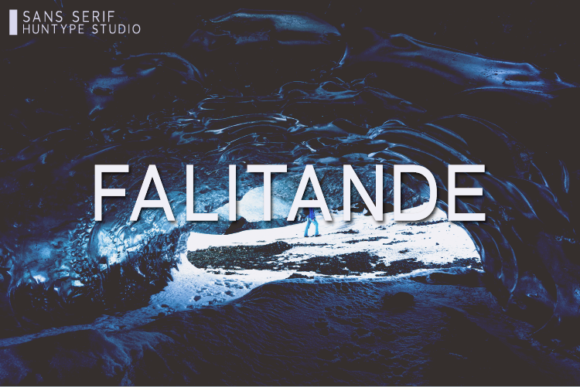
Step into the world of sleek and sophistication with Falitande, a minimal masterpiece that will redefine your typography journey. Crafted by the experts at Huntype, this sans serif font is not just a collection of letters; it's an expression of elegance and grace ready to transform your creative endeavors.
Falitande's clean lines and simple curves exude a timeless charm, making it the perfect choice for fashion logos seeking a touch of understated luxury. Its effortlessly stylish demeanor adds a hint of refinement to any design, leaving a lasting impression on your audience. Whether you're designing a logo for a high-end clothing line, a chic boutique, or a fashion blog, Falitande will elevate your designs to new heights of sophistication.
This versatile font effortlessly adapts to various design styles, making it a true all-rounder. Its crisp and legible structure lends itself perfectly to headlines, body text, and even branding elements, ensuring a cohesive and visually appealing aesthetic throughout your projects. With Falitande, you can create eye-catching social media posts, stunning brochures, and captivating websites that exude professionalism and leave a lasting impact.
But Falitande is more than just a visually stunning font; it's a gateway to a world of creative possibilities. Its minimalistic nature invites you to experiment with colors, textures, and layouts, allowing your imagination to run wild. Unleash your creativity and watch as Falitande transforms your designs into masterpieces that stand out from the ordinary.
So, embrace the allure of Falitande and embark on a journey of typographic elegance. Let its clean lines and understated beauty elevate your designs to new heights. With Falitande as your creative companion, you'll never settle for ordinary fonts again.